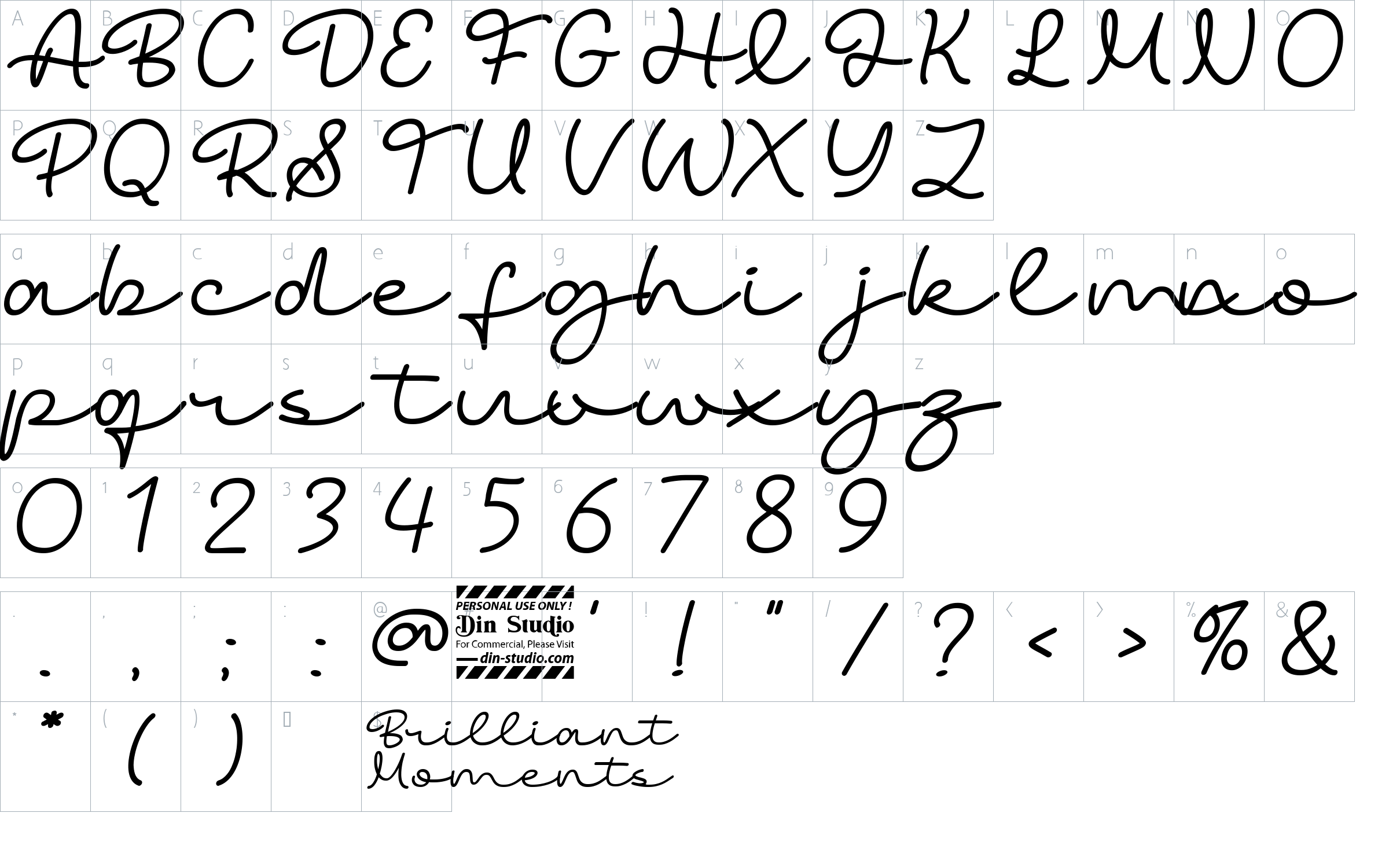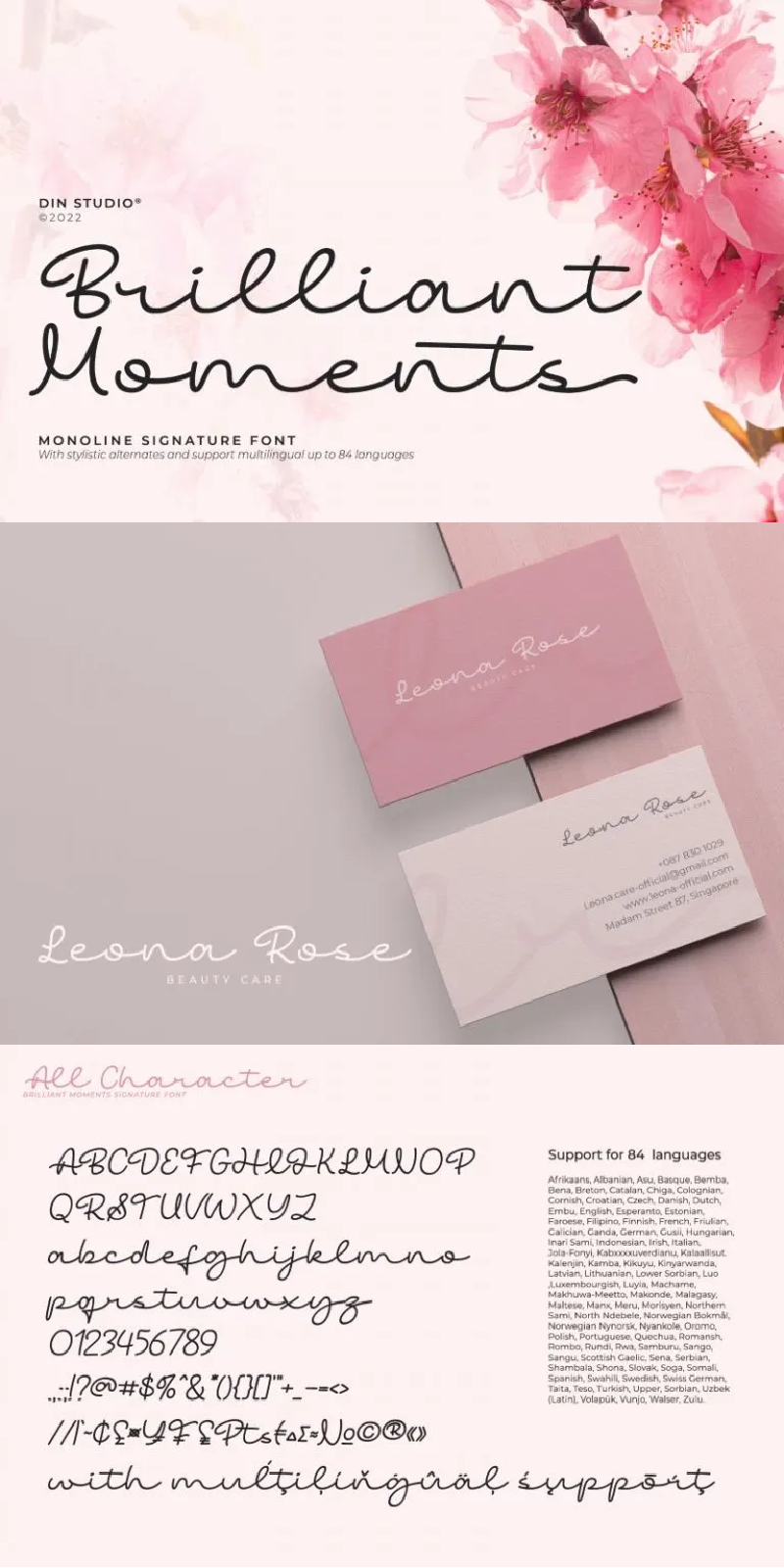
Brilliant Moments Font
About Brilliant Moments
Brilliant Moments. It is a script font that is a handwriting-like script font involving strokes and angles. This font works perfectly for both bigger- and smaller-sized texts. Besides, it has interesting features to help you maximize your designs.
• Stylistic Sets